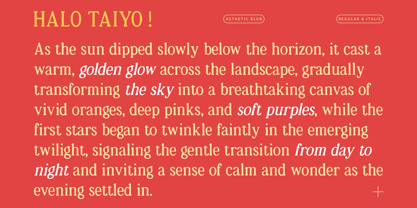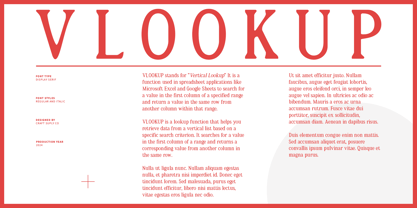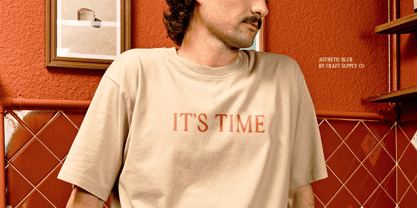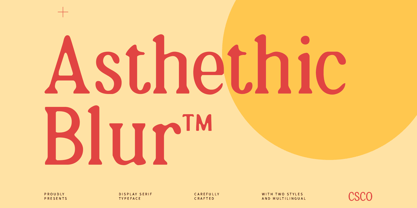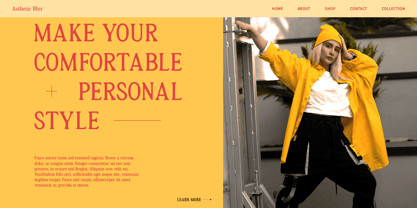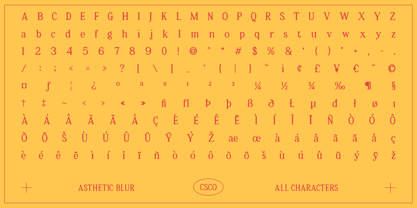
Asthetic Blur
by Craft Supply Co
The Asthetic Blur Font Family was designed by Trio Nazzar Saputra, Wahyu Hadi Yuana and published by Craft Supply Co. Asthetic Blur contains 2 styles and family package options.
Asthetic Blur – Elegant Serif Font: Classic Grace with Modern Depth
Classic Serif with a Blur Effect
Asthetic Blur is a serif font that masterfully blends classic, retro elegance with a sophisticated blur effect. This combination offers a traditional grace enhanced by a modern touch, creating a distinctive look that stands out with both timeless appeal and contemporary flair.
Retro and Refined with Visual Depth
The blur effect in Asthetic Blur introduces dimension and depth, giving the font a smooth yet refined vintage vibe. This effect enhances its classic serif structure, creating a look that is both elegant and visually intriguing.
Perfect for Formal and Luxury Designs
Ideal for designs that seek a balance between classic beauty and visual uniqueness, Asthetic Blur excels in formal invitations, luxury branding, promotional materials, and editorial layouts. Its ability to merge retro and elegant elements makes it an excellent choice for projects that aim to leave a captivating and character-filled impression.
Versatile for High-End Projects
Asthetic Blur offers versatility for a range of high-end design applications. Whether you’re crafting sophisticated branding, elegant invitations, or polished promotional content, this font delivers a blend of traditional charm and modern sophistication, making it a standout choice for any design requiring a touch of classic elegance with a unique twist.